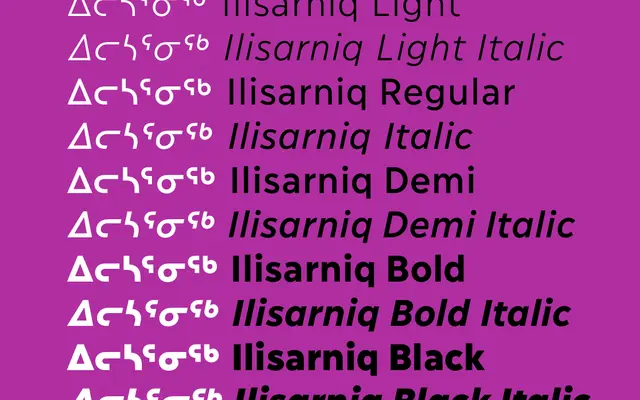
Ilisarniq
Coppers and Brasses · Étienne Aubert Bonn · 2018
Designed for the Kativik School Board in Nunavik, this free family spans Latin and Inuktitut syllabics across 10 styles with matched text colour between the two scripts.
Commissioned by the Kativik School Board, the only school board in Nunavik, the family was built to serve communities where Inuktitut is the first language of instruction alongside French and English. Étienne Aubert Bonn developed the design with input from the school board and local communities to ensure legibility across both scripts, with particular care taken to match the visual weight of Latin and syllabic text set side by side. The full family of 10 styles runs from Light to Black with italics throughout and is freely available to broaden access to quality Inuktitut syllabic typography.
A clean, modern sans-serif designed for dual-script use across Latin and Inuktitut syllabics, with humanist proportions optimised for text legibility and tonal consistency between the two scripts.